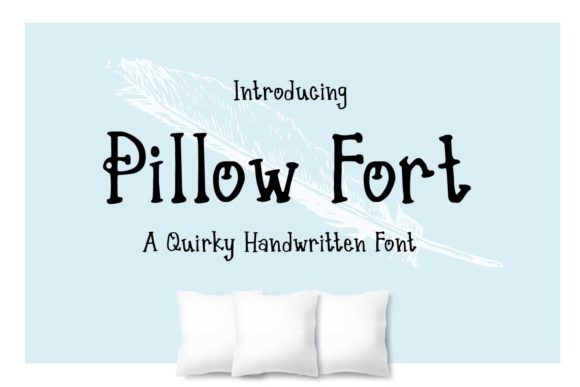
Pillow Fort Font: The Quirky Handwritten Font for Creative Projects
The world of typography is vast and exciting, with numerous fonts to choose from, each with its unique character and personality. If you’re looking for a font that adds a touch of whimsy and playfulness to your projects, look no further than the Pillow Fort font. In this article, we’ll explore the Pillow Fort font, its features, and how it can elevate your creative projects.
What is Pillow Fort Font?
Pillow Fort is a quirky handwritten font that is perfect for adding a personal touch to your projects. Its unique and irregular shape makes it stand out from more traditional fonts, giving your text a friendly and approachable feel. Whether you’re a designer, a crafty person, or simply someone who loves to create, Pillow Fort is an excellent choice.
Key Features of Pillow Fort Font
- Handwritten style: Pillow Fort has a distinctly handwritten look, making it perfect for projects that require a personal touch.
- Quirky and playful: The font’s irregular shape and playful vibe make it ideal for creative projects that need a bit of whimsy.
- Versatile: Pillow Fort can be used for a wide range of projects, from digital designs to handmade crafts.
- Easy to read: Despite its quirky nature, Pillow Fort is surprisingly easy to read, making it perfect for body text and headings.
Uses of Pillow Fort Font
Pillow Fort is an incredibly versatile font that can be used for various projects. Here are some ideas to get you started:
Project Ideas for Pillow Fort Font
- Crafting: Use Pillow Fort to add a personal touch to your handmade crafts, such as knitting patterns, sewing projects, or scrapbooking.
- Digital designing: Pillow Fort is perfect for digital designers who want to add a playful touch to their designs, such as social media graphics, blog posts, or email newsletters.
- Presentations: Add some personality to your presentations with Pillow Fort, making them more engaging and fun to read.
- Greeting cards making: Create unique and personalized greeting cards with Pillow Fort, perfect for special occasions like birthdays, holidays, or weddings.
Benefits of Using Pillow Fort Font
So, why choose Pillow Fort font for your projects? Here are some benefits of using this quirky handwritten font:
Benefits of Pillow Fort Font
- Unique and distinctive: Pillow Fort stands out from more traditional fonts, giving your projects a unique and distinctive look.
- Easy to use: The font is surprisingly easy to read and use, making it perfect for body text and headings.
- Versatile: Pillow Fort can be used for a wide range of projects, from digital designs to handmade crafts.
- Playful and engaging: The font’s playful vibe makes it perfect for projects that need to engage and entertain the audience.
Tips for Using Pillow Fort Font
To get the most out of Pillow Fort font, here are some tips to keep in mind:
Tips for Using Pillow Fort Font
- Use it sparingly: While Pillow Fort is a beautiful font, it can be overwhelming if used excessively. Use it sparingly to add emphasis and personality to your projects.
- Pair it with other fonts: Experiment with pairing Pillow Fort with other fonts to create a unique and visually appealing combination.
- Adjust the size and color: Play around with the font size and color to create visual interest and hierarchy in your projects.
- Experiment with different styles: Don’t be afraid to experiment with different styles, such as italic or bold, to add variety to your projects.
In conclusion, Pillow Fort font is a quirky and playful handwritten font that is perfect for adding a personal touch to your projects. Its unique and irregular shape makes it stand out from more traditional fonts, giving your text a friendly and approachable feel. With its versatility, ease of use, and playful vibe, Pillow Fort is an excellent choice for a wide range of projects, from digital designs to handmade crafts. So, go ahead and give Pillow Fort a try – you won’t be disappointed!